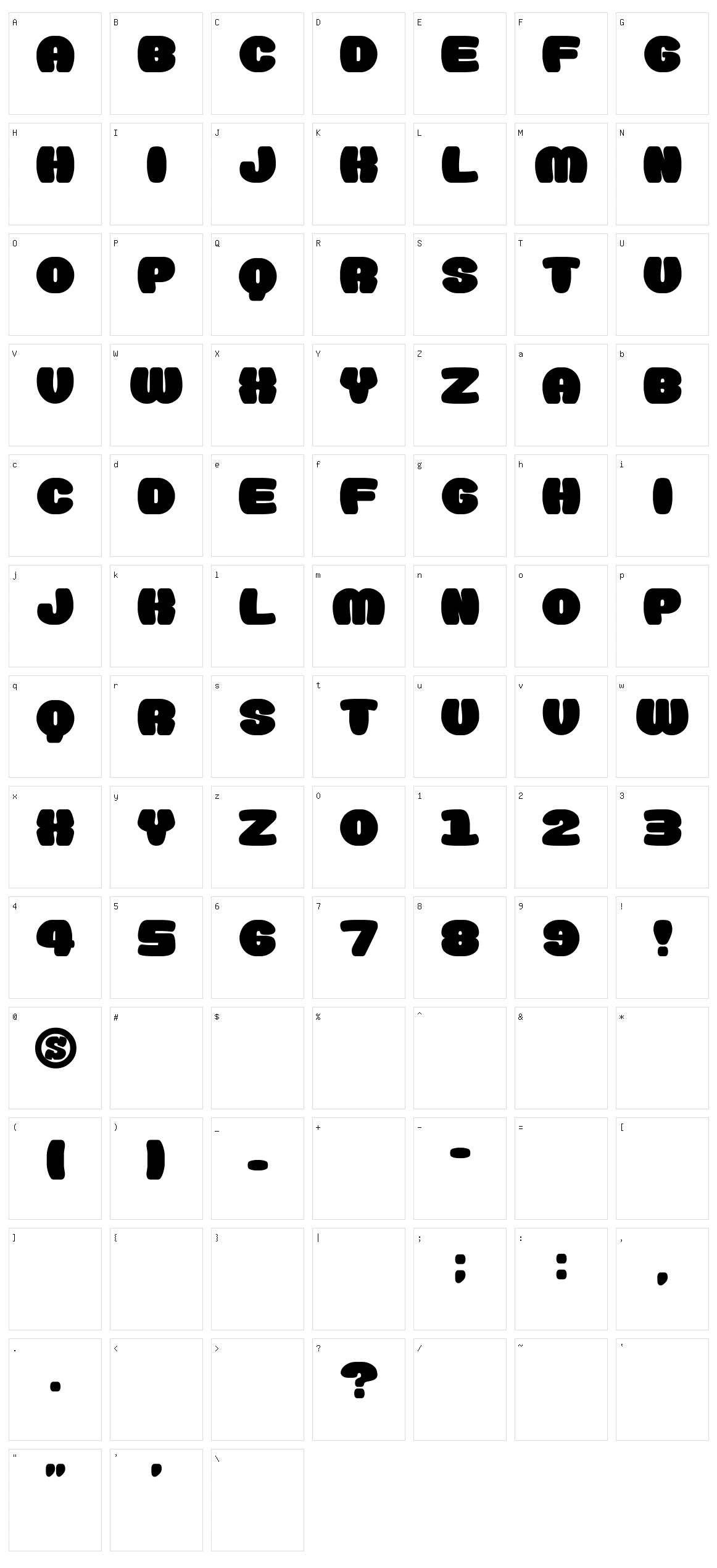
The free font Doughnut Monster G is carefully designed by Goma Shin, showcasing a thoughtful balance of creativity and usability and falls under the Groovy font style. When you download the ZIP file, it contains only 5.12 KB of font files, making it lightweight and quick to download. Please review the license details below to understand permitted usage and distribution rights. If license information is not available, we recommend using this font for personal projects only or contacting the author directly for commercial usage permissions.